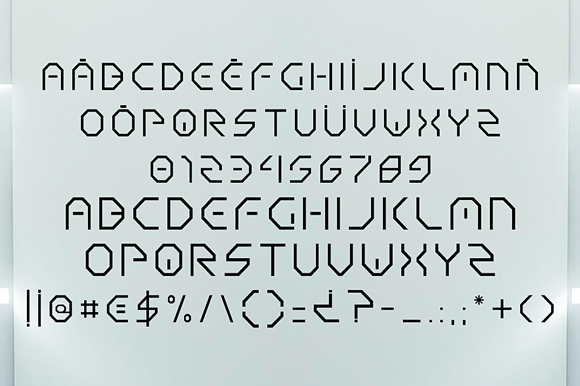
The Alpha3 Font: A Unique Display Typeface for Creative Projects
I’ll never forget the time I was working on a branding project for a trendy new cafe. My client was adamant that they wanted a font that was both bold and elegant, but also highly legible. I scoured the internet for what felt like hours, but nothing seemed quite right. That was until I stumbled upon the Alpha3 font. With its unique characters and excellent readability, it was the perfect solution to my design dilemma.
An Honest Review of Alpha3
- ✨ Unique and distinctive character designs that add a touch of personality to any project
- ✅ Excellent readability, even at smaller font sizes
- 💡 Supports a wide range of languages and scripts
- 🎨 Highly versatile and can be used for a variety of design applications, from headings to titles
While the Alpha3 font is incredibly useful, it’s not without its quirks. For example:
- ⚠️ Some characters may appear a bit narrow or condensed, which can affect the overall flow of text
- 🤔 Limited support for certain OpenType features, such as ligatures or swashes
The Backstory of Alpha3
The Alpha3 font was designed by a team of typographers who wanted to create a unique and highly legible display font. Inspired by classic typography and modern design trends, Alpha3 was crafted to be both elegant and versatile. The design team spent countless hours refining the character designs and testing the font for readability and usability.
Q: What is the Alpha3 font?
A: The Alpha3 font is a unique display typeface designed for creative projects. It features distinctive character designs and excellent readability.
Q: What languages does Alpha3 support?
A: Alpha3 supports a wide range of languages and scripts, making it a versatile font for international designs.